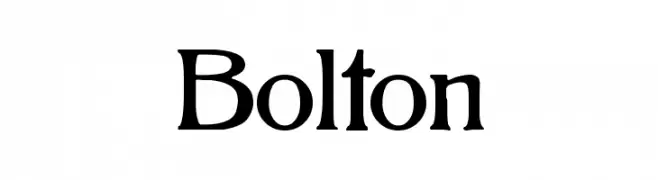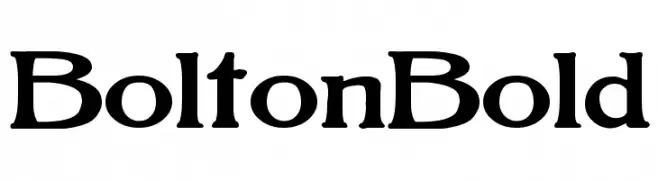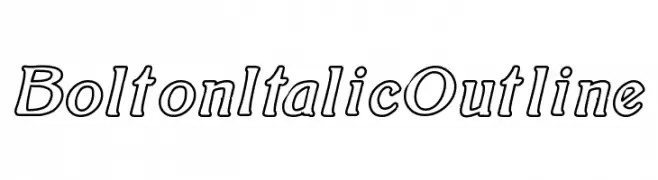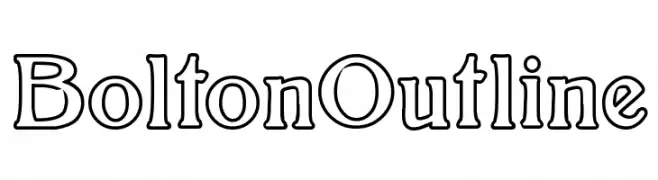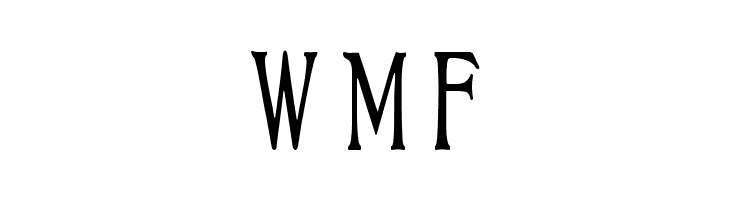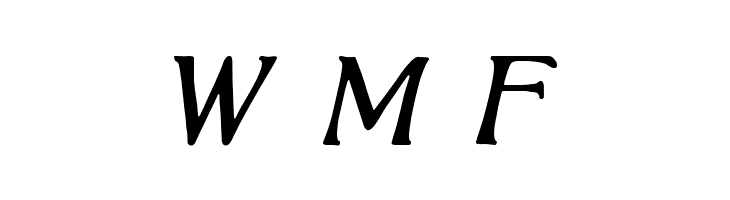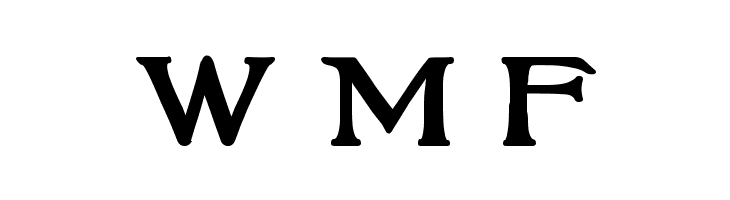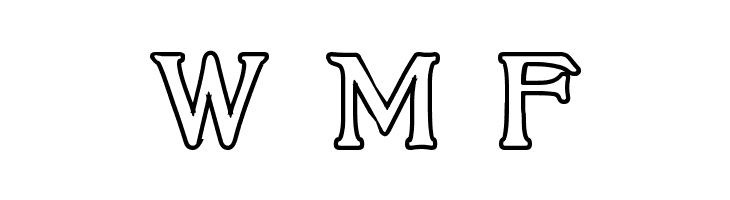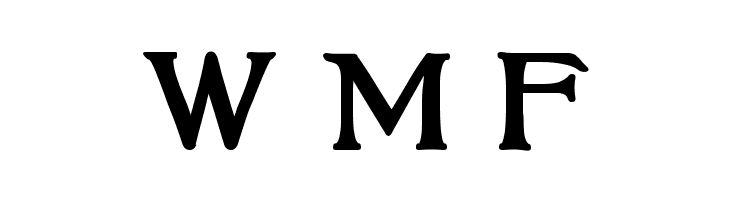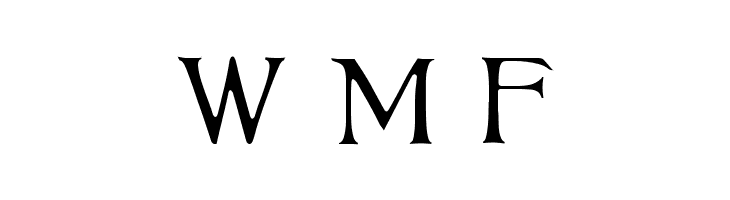
An elongated, elegant font with tall, narrow letterforms and subtle curves.
An elegant italic serif font with smooth curves and a classic style.
A bold, dynamic font with strong, slightly curved strokes and a modern vintage feel.
A bold, outlined font with a modern and playful style.
An italic outlined font with a bold yet airy appearance.
A bold serif font with high contrast and strong serifs, offering a classic yet modern appearance.
An elegant serif font with classic, sophisticated styling.
A bold serif font with angular serifs and a strong, modern aesthetic.
A bold, elegant serif font with sharp serifs and a modern touch.
An elongated serif font with elegant, narrow letterforms and pronounced serifs.